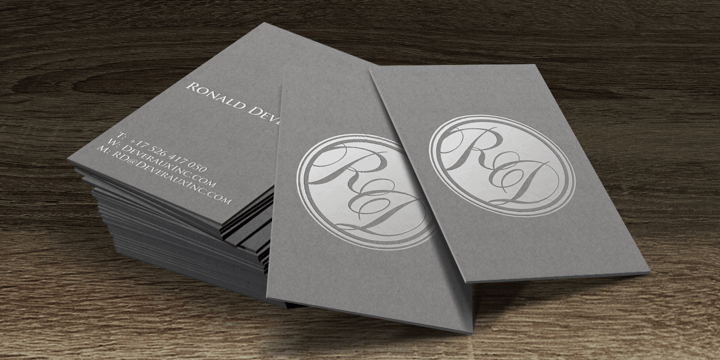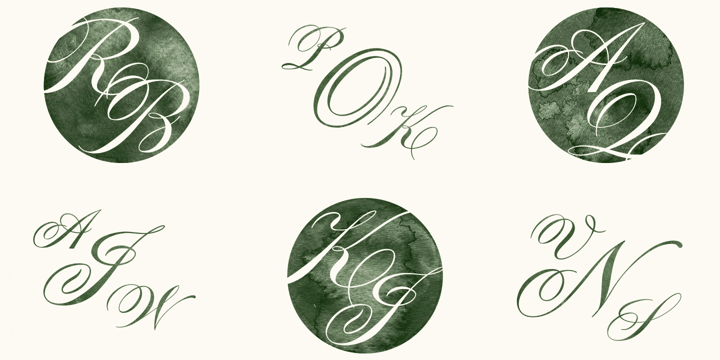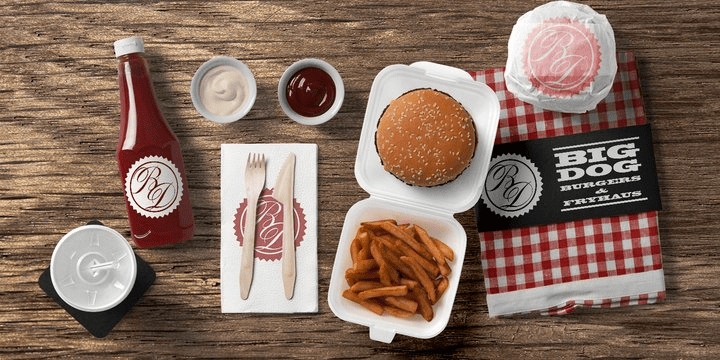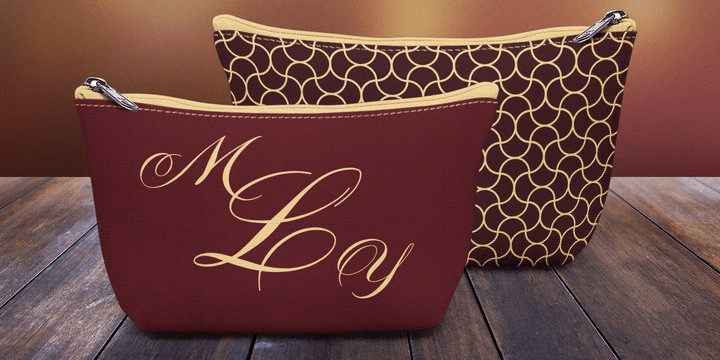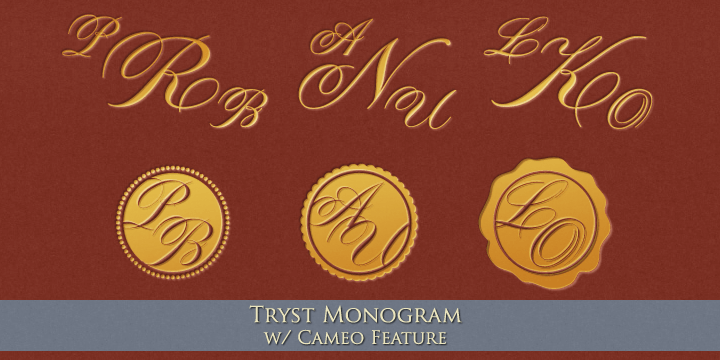
Tryst Monogram
Font Family by Monogram Fonts Co
The inspiration source for Tryst Monogram is a showcard script (capitals only) from the 1912 "A Show at Showcards" book by Atkinson & Atkinson. What began as 26 referenced script letters became an over 800 character font in order to create its unique cameo effect!
Tryst Monogram can create one, two, or three letter monograms as well as a unique two letter cameo monogram style - made by simply typing two lowercase letters in a row (using OpenType Ligatures). Add framing to a cameo monogram by adding a number 0-9 before the two letters. It's that easy!